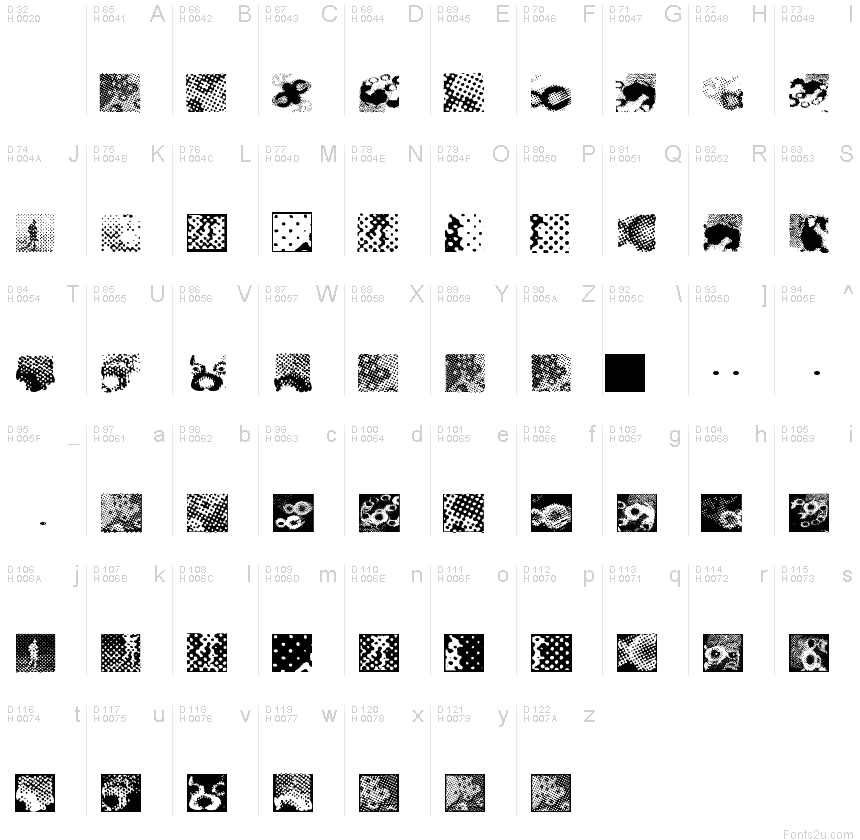
Pointilism Toolbox by Manfred Klein is a free pointillist dingbat font built from dense fields of dots. Its symbols shift between loose organic silhouettes and tighter halftone clusters, with edges that appear speckled or dissolved. The marks feel printed and tactile.
Dot patterns can merge directly with illustration as shadows, textures, or abstract forms. They suit experimental posters, music packaging, editorial graphics, and merchandise with a rough photocopied look. In branding, they become patterned badges rather than ordinary lettering.